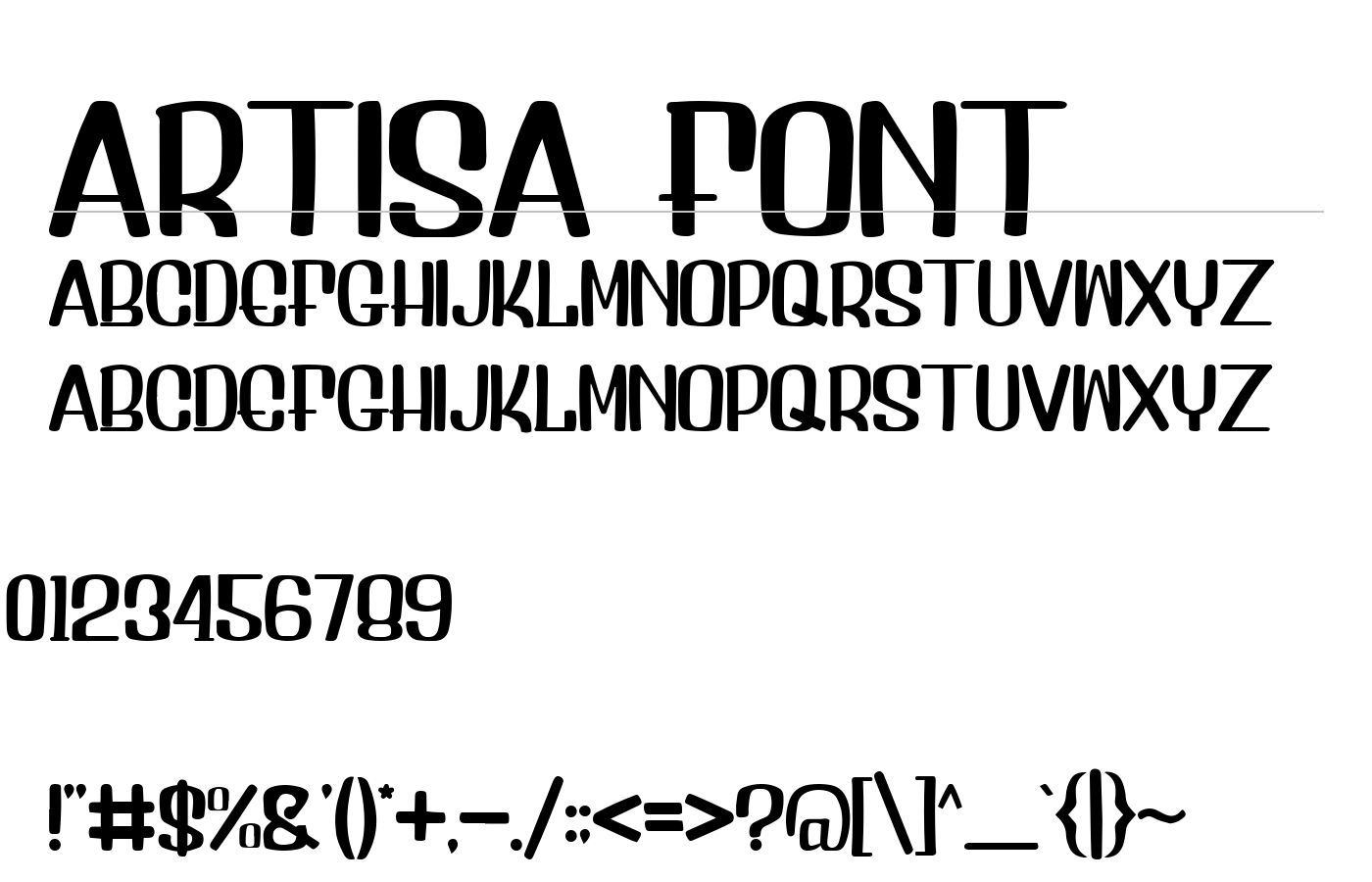
Artisa Font is a quirky, condensed sans serif with a playful, hand-crafted feel, featuring tall, slightly irregular letterforms and distinct rounded terminals. Its medium weight and consistent stroke width give it a friendly yet unique personality, making it great for creative branding, headlines, and packaging that aim to stand out with a fun and approachable style. This font’s charm lies in its artistic imperfections, perfect for adding character to designs without sacrificing readability.
Artisa Font
| Font family | Artisa Font |
| Designer | REPI HILMANA |